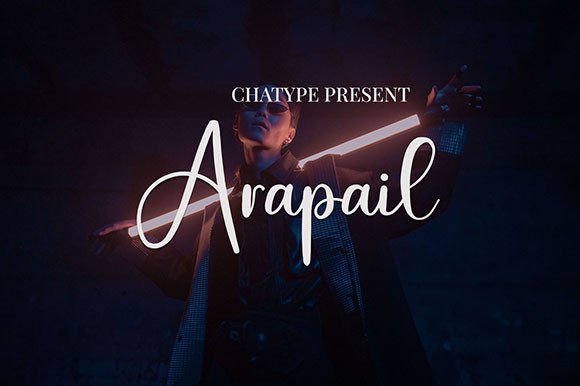
About Arapail Font
Arapail is a casual and neat handwritten script font. Whether you’re using it for crafts, digital design, presentations, or making greeting cards, this font has the potential to become your favorite go-to font, no matter the occasion!